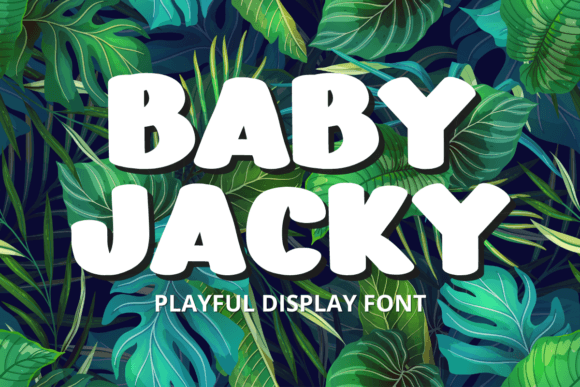
Baby Jacky Font: The Playful Display Font to Elevate Your Designs
In the world of typography, fonts play a crucial role in making or breaking a design. A font can either make your design stand out or render it dull and uninteresting. If you’re looking for a font that can add a touch of playfulness and uniqueness to your designs, look no further than Baby Jacky Font. In this article, we’ll explore the features and benefits of Baby Jacky – Playful Display Font and why it’s a must-have for designers and creatives.
What is Baby Jacky Font?
Baby Jacky Font is a cool, bold display font designed to bring life to your designs. With its unique and beautiful style, this font is perfect for adding a touch of playfulness to your favorite designs. Whether you’re working on a project for a client or creating something for personal use, Baby Jacky Font is sure to impress.
Key Features of Baby Jacky Font
• Uppercase and Lowercase Letters: The font includes both uppercase and lowercase letters, giving you flexibility and versatility in your designs.
• Numbering and Punctuation: Baby Jacky Font also includes numbering and punctuation marks, making it a comprehensive font for all your design needs.
How to Use Baby Jacky Font
Baby Jacky Font is a versatile font that can be used in a variety of design projects. Here are some ideas to get you started:
• Logos and Branding: Use Baby Jacky Font to create a unique and memorable logo for your brand.
• Social Media Graphics: Add a touch of playfulness to your social media graphics with Baby Jacky Font.
• Posters and Flyers: Use the font to create eye-catching posters and flyers that grab attention.
• Web Design: Baby Jacky Font can be used in web design to add a touch of personality to your website.
Get Inspired by Baby Jacky Font
Baby Jacky Font is a unique and beautiful font that can add a touch of inspiration to your designs. With its playful and bold style, this font is sure to spark creativity and take your designs to the next level.
Here are some ways to get inspired by Baby Jacky Font:
• Experiment with Different Design Styles: Try out different design styles and see how Baby Jacky Font looks in different contexts.
• Play with Color and Texture: Experiment with different colors and textures to see how they interact with Baby Jacky Font.
• Use the Font in Combination with Other Fonts: Try pairing Baby Jacky Font with other fonts to create a unique and interesting typography.
Tips for Using Baby Jacky Font
Here are some tips to keep in mind when using Baby Jacky Font:
• Use it Sparingly: Baby Jacky Font is a bold font, so use it sparingly to avoid overwhelming your design.
• Pair it with a Neutral Font: Pair Baby Jacky Font with a neutral font to create contrast and visual interest.
• Experiment with Font Sizes: Experiment with different font sizes to see how Baby Jacky Font looks in different contexts.
In conclusion, Baby Jacky – Playful Display Font is a unique and beautiful font that can add a touch of playfulness and inspiration to your designs. With its bold and playful style, this font is perfect for designers and creatives looking to elevate their designs. Whether you’re working on a logo, social media graphic, or website, Baby Jacky Font is a great choice.